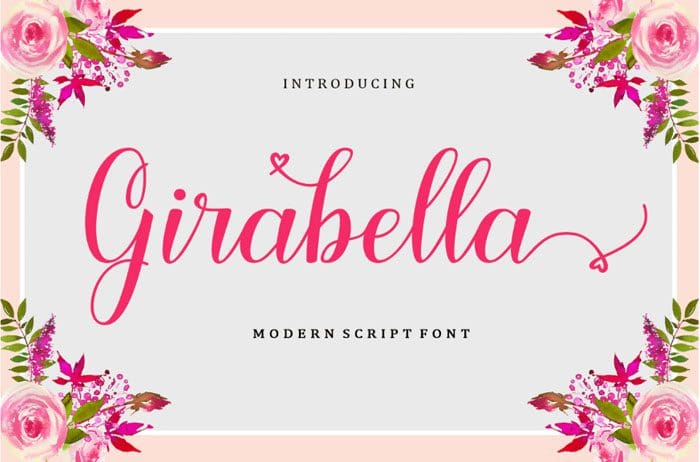
Girabella Script Font
Girabella is a beautiful & elegant Script Font. It looks lovely on wedding invitations, thank you cards, quotes, greeting cards, logos, business cards and every other design which needs a handwritten touch. Thanks to bosstypestudio for sharing this font! Take a look at this portfolio for more of his stunning fonts.